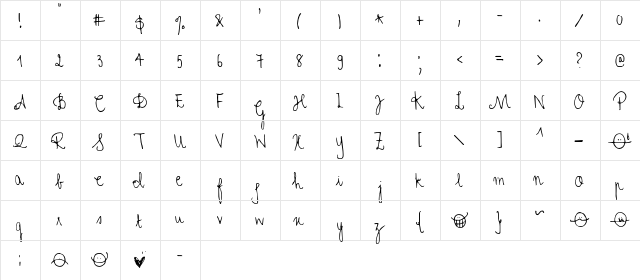
FG Cher Font Regular
| Foundry | Cheryl Ip fonted by Font Garden |
| Designer | Ellinor Rapp |
Design Context for FG Cher Font Typeface
FG Cher Font is a composed and adaptable typeface that performs quietly and consistently across a wide range of design contexts.